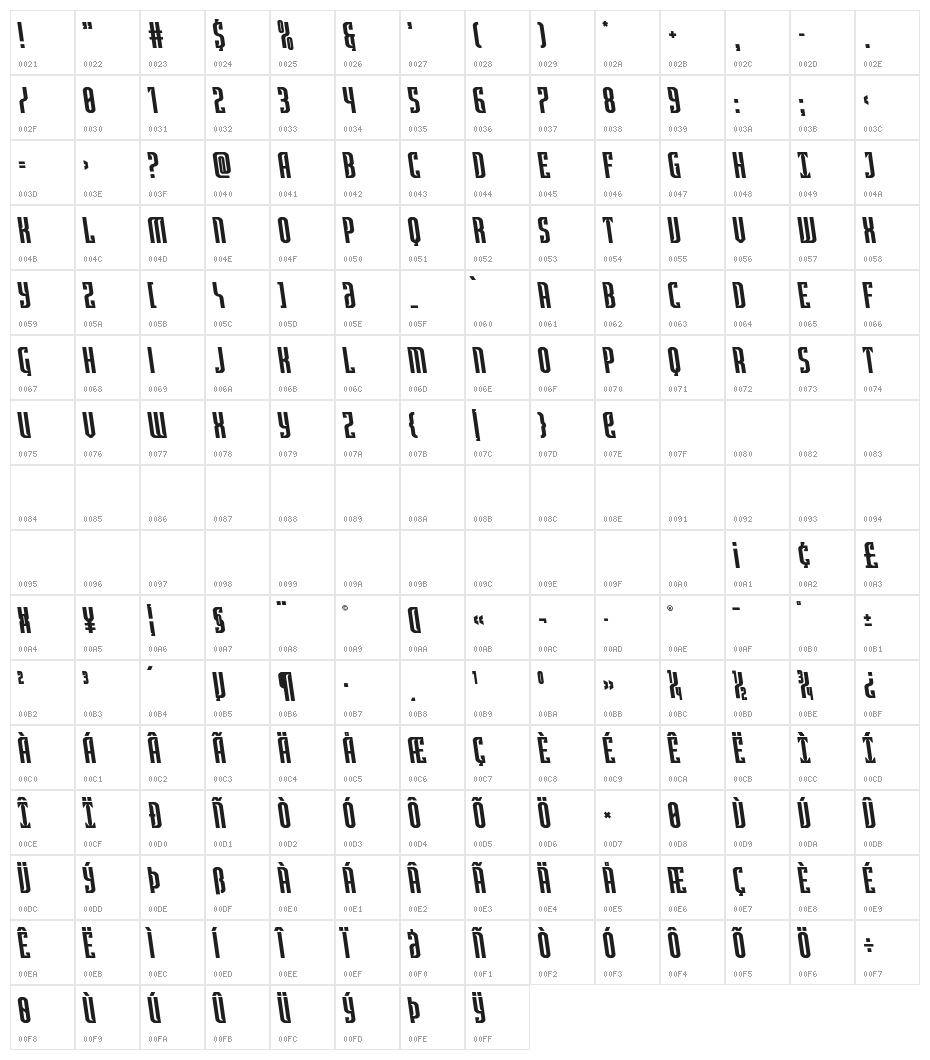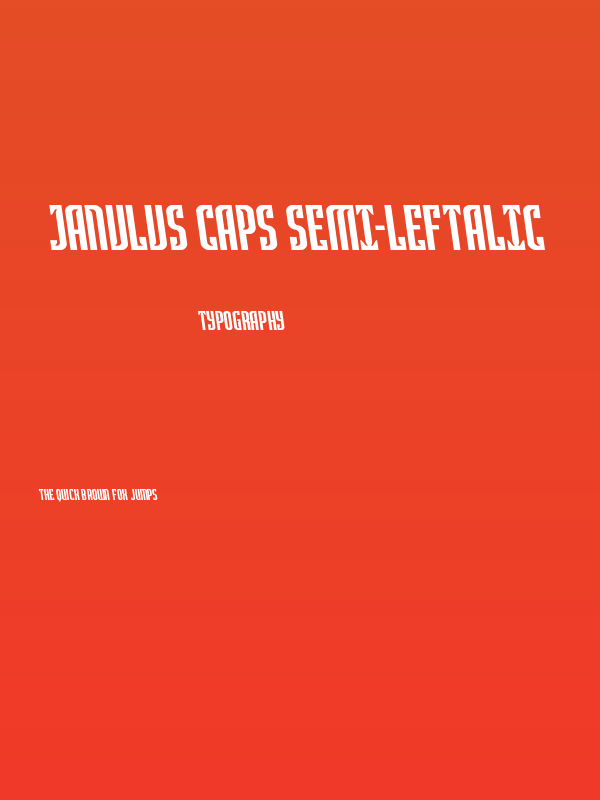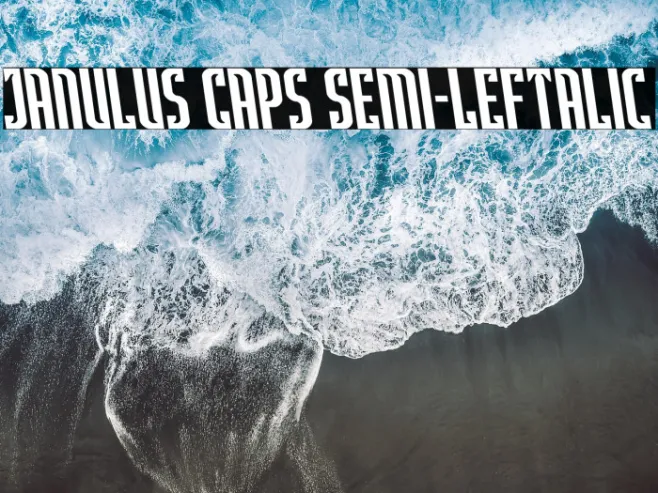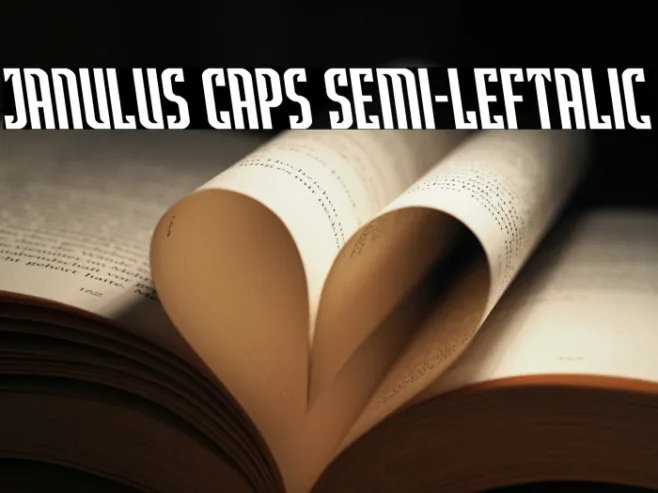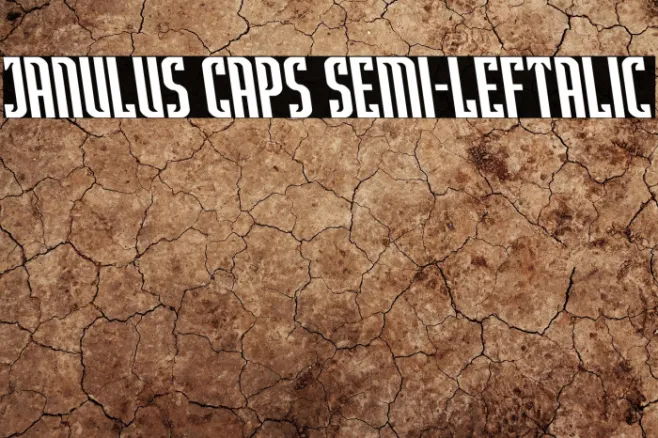
Janulus Caps Semi-Leftalic Font
Janulus Caps Semi-Leftalic Description
This font features a bold and dynamic design with a distinct leftward slant, giving it a unique and energetic appearance. The characters are tall and narrow, with sharp angles and a strong geometric influence. The uppercase letters dominate the design, while the lowercase letters maintain the same boldness and angularity. Numbers and special characters are consistent with the overall style, ensuring a cohesive look across all glyphs. The font's high contrast between thick and thin strokes adds to its striking visual impact, making it suitable for attention-grabbing applications.
| Proposed Projects | Ideal for posters, logos, branding, and headlines that require a bold and dynamic presence. |